Essex Street Market Signage & Typeface Design
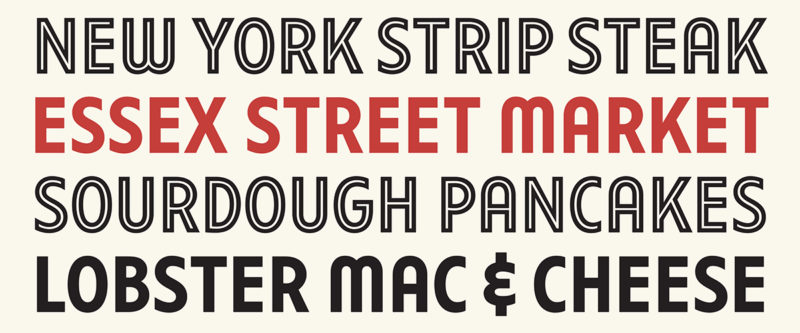
The Essex Market has an entirely new identity design and signage. In this talk, Tobias Frere-Jones and Nina Stössinger will talk about the design and process behind the creation, as well as the way letterforms evolve between eras, hinting at the story of the city and its past.
For those not familiar with the market, it’s been a big part of the lower east side of Manhattan for nearly three-quarters of a century. “The typeface anchors this newest incarnation of the market in its history, by referring back to some of the meat market’s earliest painted and neon signage. The designers have researched these original signs and reinterpreted them in contemporary form, adapting the fonts for various applications and media.”